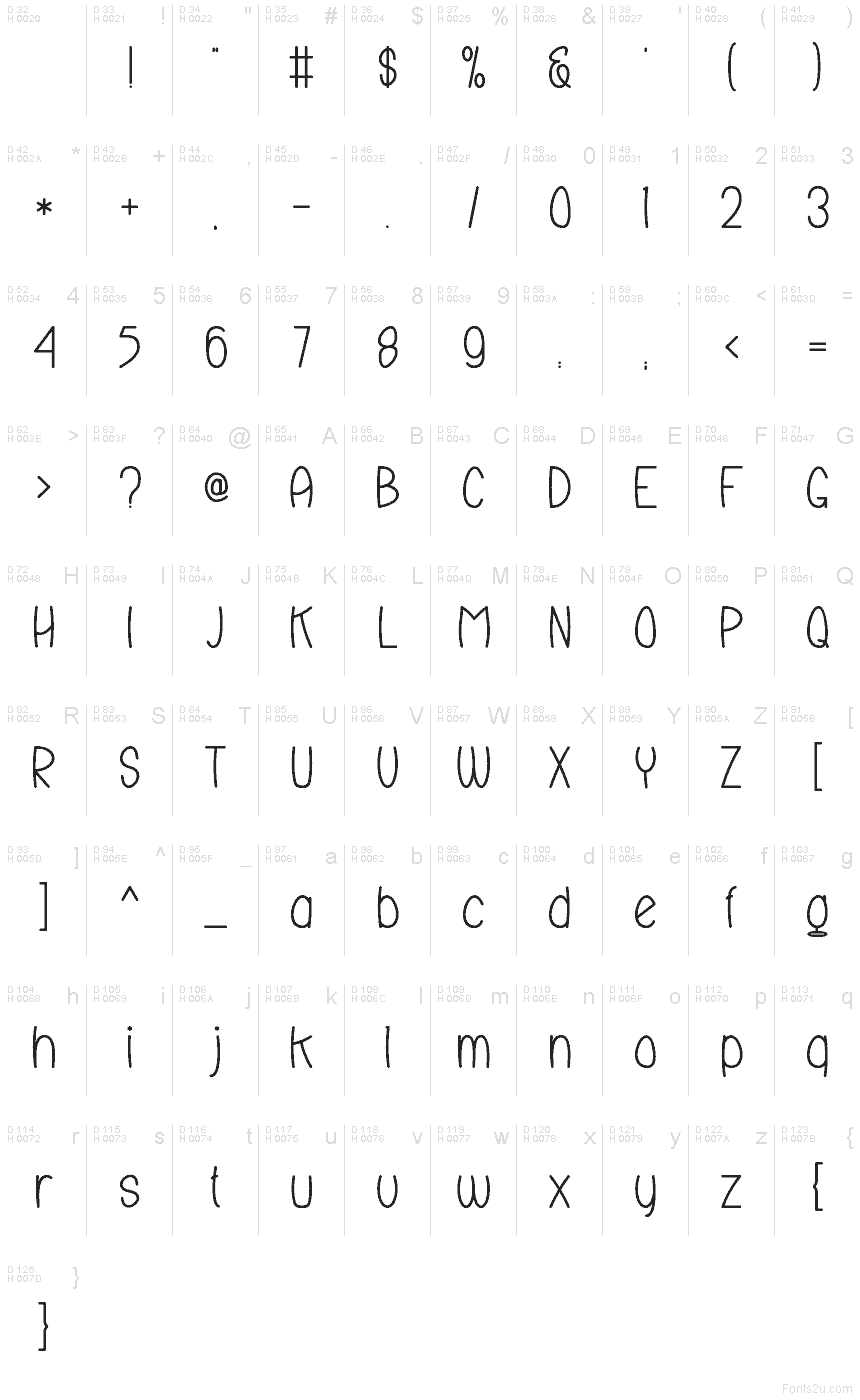
Jingle Balls
Jingle Balls font by Gilang Ternadho is a fun and casual display font that communicates a handwritten feel. It is light and condensed, making the playful letters look artistic from one end to another. Here’s a typeface built for innovation as it enables unique modern designs with an unexpected twist that captures every reader.
Feel free to include Jingle Balls in branding designs, logotypes, T-shirts, business cards, book titles, or invitation cards to special ocassions like Halloween or New Year’s parties. Other cool applications involve albums/artwork covers, party belongings packaging (hats & screeners), games interfaces/titles, posters, inscriptions on coffee mugs/accessories …